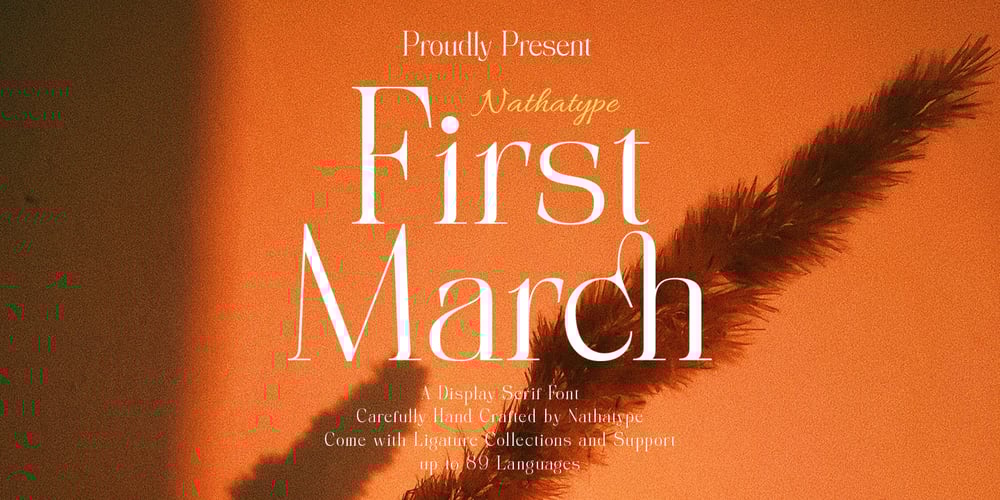
First March Font Family was designed by Donis Miftahudin and published by Nathatype. First March contains 1 styles and family package options. First March is a captivating display serif font designed with elegance and a touch of modernity. This typeface combines classic serif elements with a contemporary twist, offering a unique and refined look to your creative projects. The elegant letterforms with clean lines and balanced proportions adding a sense of sophistication and grace to your typography. The serif details provide a timeless appeal, while the modern twist brings a fresh and current vibe to the font. This combination creates a harmonious balance between tradition and innovation. What sets First March apart are its swinging endings in select letters. These graceful and subtle flourishes add a touch of dynamism and playfulness to the font, creating an engaging visual experience. The swinging endings bring a sense of movement and fluidity to the letterforms, enhancing the overall elegance of the typeface. Because of its legibility you can use this font in a variation of text sizes. Enjoy the available features here.Features: Ligatures Stylistic Sets Multilingual Supports PUA Encoded Numerals and Punctuations First March fits in headlines, logos, posters, titles, invitations, branding materials, print media, editorial layouts, website headers, and many more. Find out more ways to use this font by taking a look at the font preview.Thanks for purchasing our fonts. Hopefully, you have a great time using our font. Feel free to contact us anytime for further information or when you have trouble with the font. Thanks a lot and happy designing.